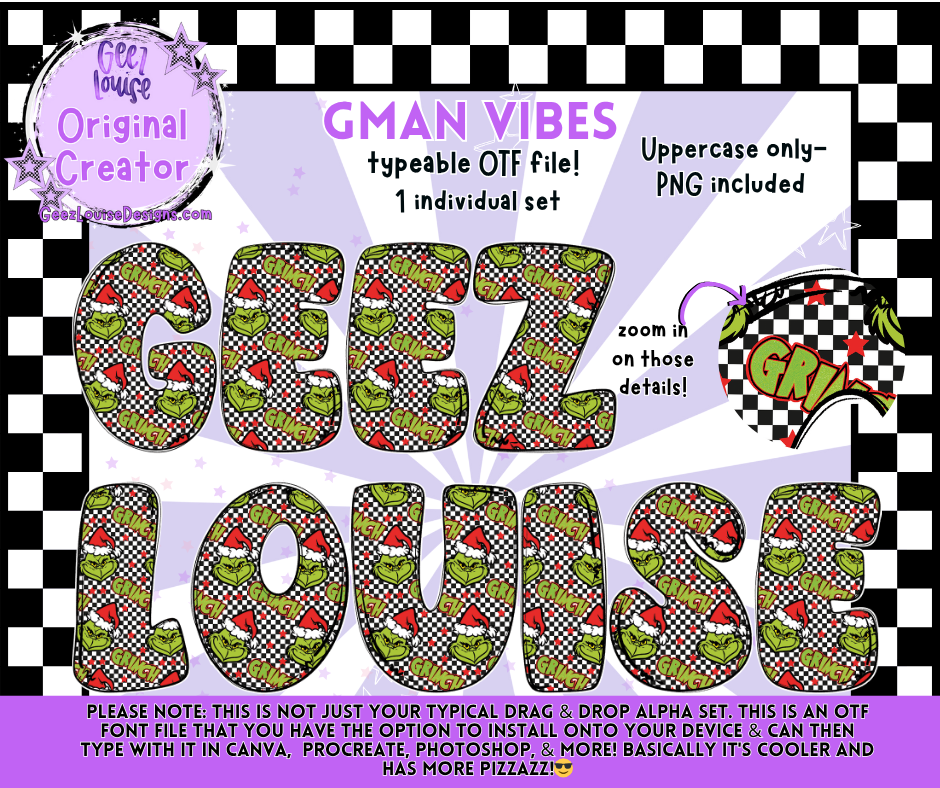
GMAN Vibes Font & PNG Alpha | Typeable OTF File
Bring bold holiday energy to your projects with the GMAN Vibes font! Featuring festive GMAN-inspired graphics with checkerboard details, this font adds a fun and mischievous twist to your seasonal designs.